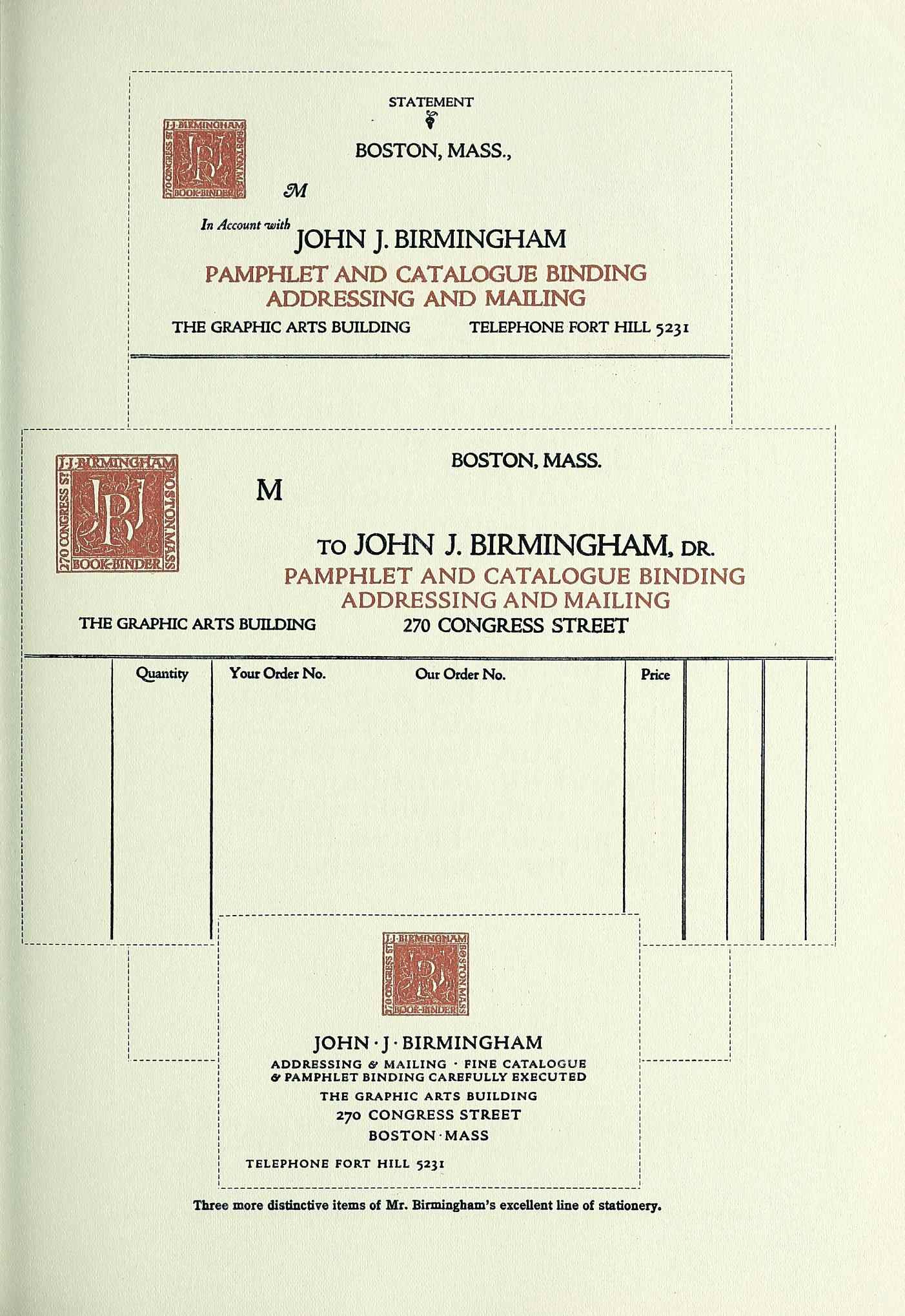
Creator: Percy Grassby, Designer, Engraver and Calligrapher
Percy Alfred Elisha Grassby was born on July 12, 1882, in Dunstable, [Bedfordshire], England. His full name was transcribed in the Manitoba, Marriage Index, 1881–1937 at Ancestry.com. Grassby’s birth information was on his World War II draft card.
On May 19, 1902, Grassby was aboard the ship Numidian when it sailed from Liverpool, England and arrived in Montreal, Canada. His occupation was artisan.
Grassby was counted in the 1906 Canada Census of Manitoba, Saskatchewan and Alberta which was enumerated beginning June 24, 1906. The surname was misspelled “Grasby”. Grassby was in his older brother’s household; Arthur was married and had a daughter. The census said Grassby immigrated in 1903 but it was 1902.
On August 3, 1906, Grassby married Lillian May Strong in Deloraine, Manitoba, Canada.
Ancestry.com has an Index to Alien Case Files. Grassby crossed the Canadian border into the U. S. on September 20, 1906. The port of entry was not recorded.
Grassby’s first child was born on November 13, 1906 in Minneapolis, Minnesota. (The Social Security Death Index said she was born May 24, 1906.) In the U.S. censuses, her name was Florence and sometime later she was known as Fiona.
Minnesota Prints and Printmakers, 1900–1945 (2009) profiled Grassby and said
… He left Canada by 1907 for Grand Rapids, Michigan, but paused in Minnesota for a few years. In 1909 he produced a set of eleven etchings and one drypoint of Twin Cities scenes, mostly of the area around Theodore Wirth Park, Bassett Creek, and the lake known at the time as Keegan’s Lake (today, Theodore Wirth Lake). …
The Twentieth Annual Report of the Minneapolis Public Library for the Year Ending December 31, 1909 (1910) said “We purchased this year a set of etchings done by Mr. Percy Grassby, a Minneapolis etcher”.
By 1911, Grassby was a Grand Rapids, Michigan resident. In the 1911 city directory Grassby lived at 328 Turner and was a designer at the James Bayne Company. (James A. Bayne was the president of the company of commercial photographers, engravers and printers, located at 378–384 North Front). The 1912 directory listed Grassby at 105 Ann NE and employed at the James Bayne company. He was not in the 1913 directory, but the American Art Annual Volume 10 (1913) had this entry: “Grassby, Percy, 167 Anne St., Grand Rapids, Mich. (P.)”
In 1912 Grassby went through Canada to sail to England. A passenger list said Grassby was a designer who departed Montreal and arrived in Liverpool, England on August 11, 1912. The date of his return to Canada is not known.
Grassby and his wife filled out immigration cards on November 30, 1914 at Newport, Vermont. Grassby said he visited Boston, Massachusetts from October 3, 1913 to October 19, 1913.
The December 1914 passenger list included Grassby and his wife on lines five and six. Their destination was Boston.
Grassby’s work was featured in the article, “Notes on Some Canadian Etchers”, in The Studio, January 15, 1915 and International Studio, February 1915.
The work of Mr. Precy [sic] Grassby is as yet not well known in Canada. Although by birth an old-countryman, he has made Canada his home. His work is more unusual than any of the others of this group, as may be seen by the reproductions. Indeed, it has a delightfully medieval flavour, the same as is imparted by an antique bit of porcelain or tapestry. But its chief charm is its distinctiveness. Even an unskilled eye could pick it out from among many others, and, good or bad, that always is a point in its favour. Should he remain in Canada and exhibit freely, his work is likely to have an influence on etching in the Dominion.
The Printing Art, March 1915, published six pages of Grassby’s wood engravings.
The New York Tribune, November 8, 1915, reported the American Institute of Graphic Arts exhibition of engravings.
Famous Prints in Art ExhibitEngravings on Display at Club Attracting Much Attention.The exhibition of American wood engraving, under the auspices of the American Institute of Graphic Arts, which opened on Wednesday last at the National Arts Club, 15 Gramercy Park, for ten days, is attracting much attention by reason of the variety and importance of the prints shown. ...... Fourteen of Rudolph’s Ruzicka’s pictures, a series of views of New York streets, are shown by permission of the Grolier Club, of this city, and his Fountains of Paul Rome are shown by permission of Mrs. Charles MacVeagh. The individual engravers exhibiting are Herbert M. Baer, Frederick T. Chapman, William Baxter Closson, Timothy Cole, Elizabeth Colwell, Arthur W. Dow, Percy Grassby, Edna Boies Hopkins, Mrs. W. M. Ivins, jr., Allen Lewis, Howard McCormick, V. Preissig, Stephen G. Putnam, Rudolph Ruzicka, William G. Watt and Henry Wolf. ...
Grassby’s decoration was reproduced in The Printing Art, December 1915.
The 1916 Boston city directory said Grassby, a designer, resided in Waverley and occupied room 25 at 26 Lime Street. Grassby was also listed in the business directory. The tenants of 26 Lime Street included artists, designers, illustrators, jewelry manufactures, metal workers, sculptors, and silversmiths. One notable person was W.A. Dwiggins. The 1917 Boston directory said Grassby resided in Lexington. The 1922 Lexington directory said he lived on Concord near Waltham.